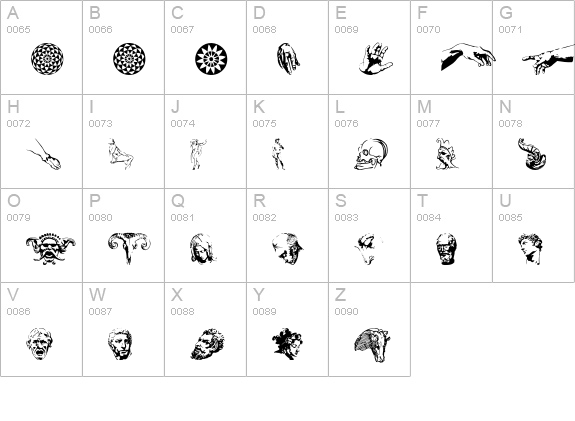
P22MichelangeloExtras Font Details
P22MichelangeloExtras is a captivating font that pays homage to the iconic Renaissance artist, Michelangelo. This unique font set features a collection of beautifully intricate and ornate designs that capture the essence of Michelangelo's masterpieces. From delicate flourishes to majestic illustrations, each character exudes a timeless elegance that is sure to enhance any project. What makes P22MichelangeloExtras even more remarkable is that it is freely available to download at FontsMarket.com. This means that designers and enthusiasts alike can easily access this stunning font without any cost. Whether you're working on a personal project or a professional endeavor, P22MichelangeloExtras offers a wealth of possibilities to add a touch of artistry and sophistication. With its rich historical references and exquisite craftsmanship, P22MichelangeloExtras is a must-have for anyone seeking to elevate their typographic designs. Its versatility allows it to be used in a wide range of applications, including branding, invitations, signage, and more. The attention to detail and meticulous design of each character will undoubtedly leave a lasting impression on your audience. Download P22MichelangeloExtras today at FontsMarket.com and unlock the endless creative possibilities it offers. Whether you're a seasoned designer or just starting out, this font is sure to inspire and elevate your projects to new heights. Embrace the beauty and artistry of Michelangelo's legacy with P22MichelangeloExtras and watch your designs come to life.